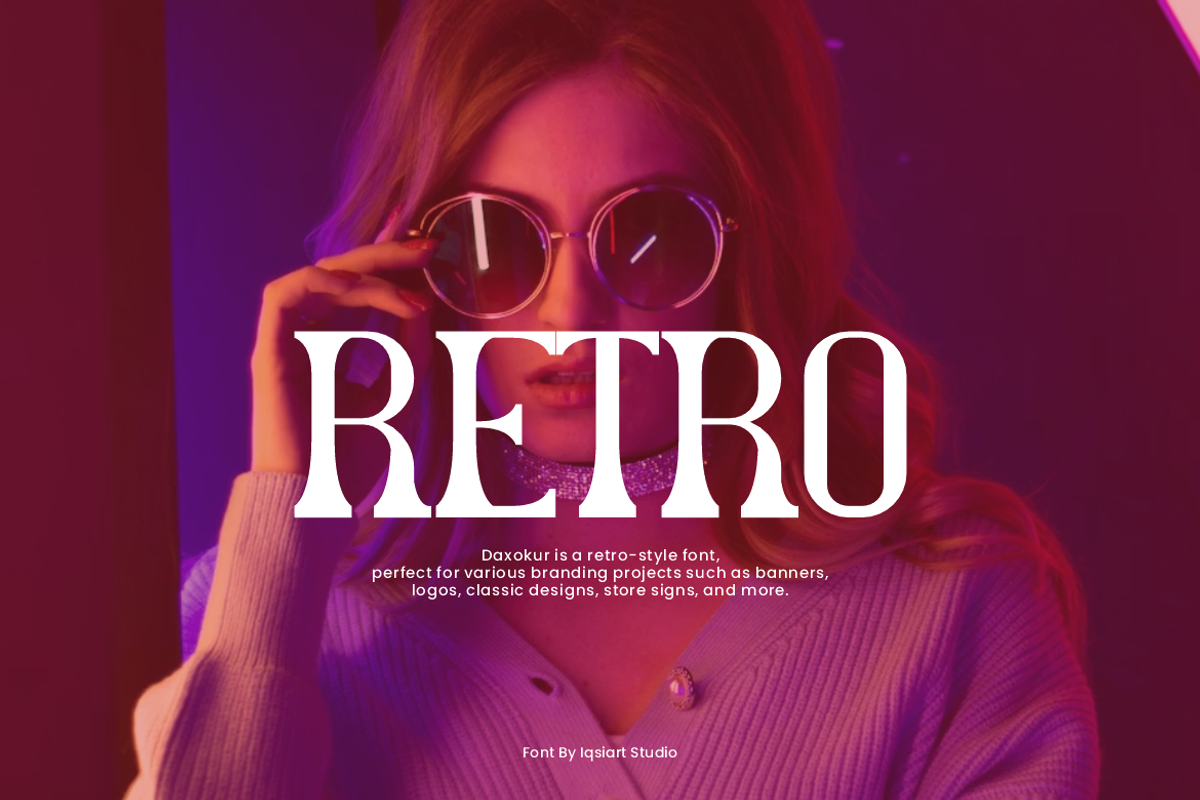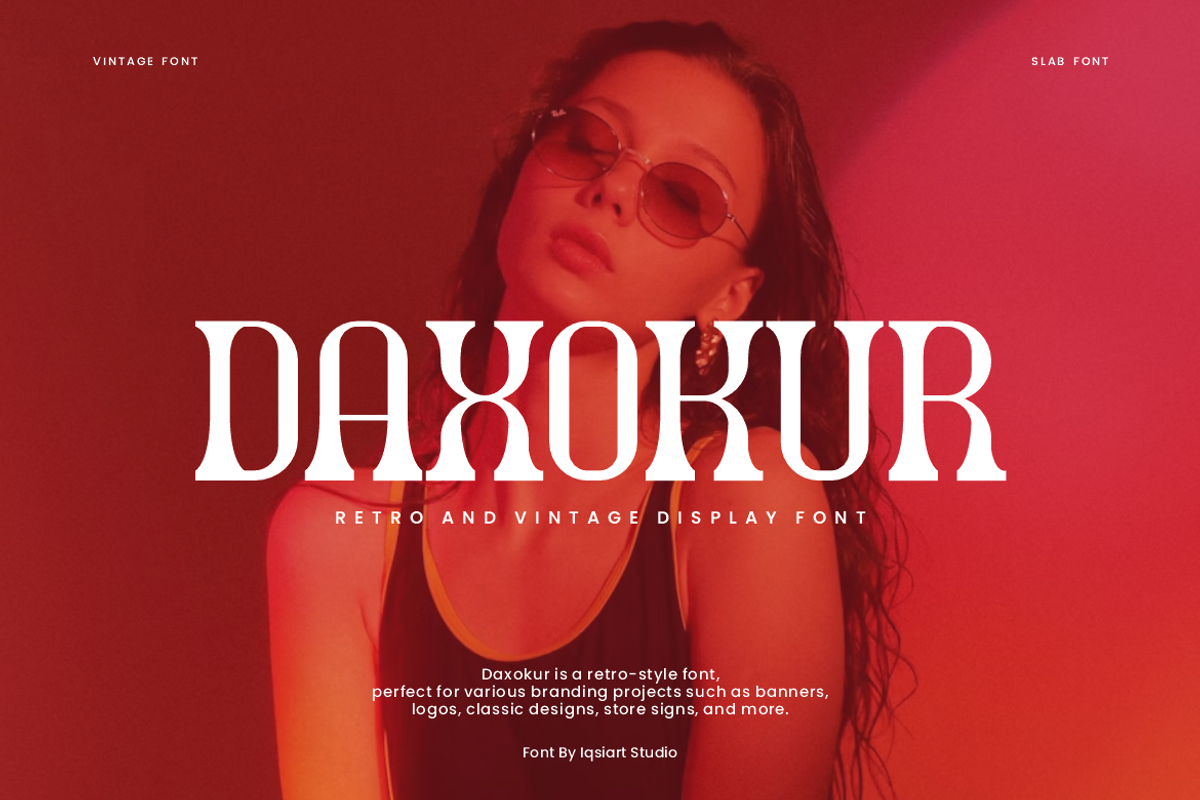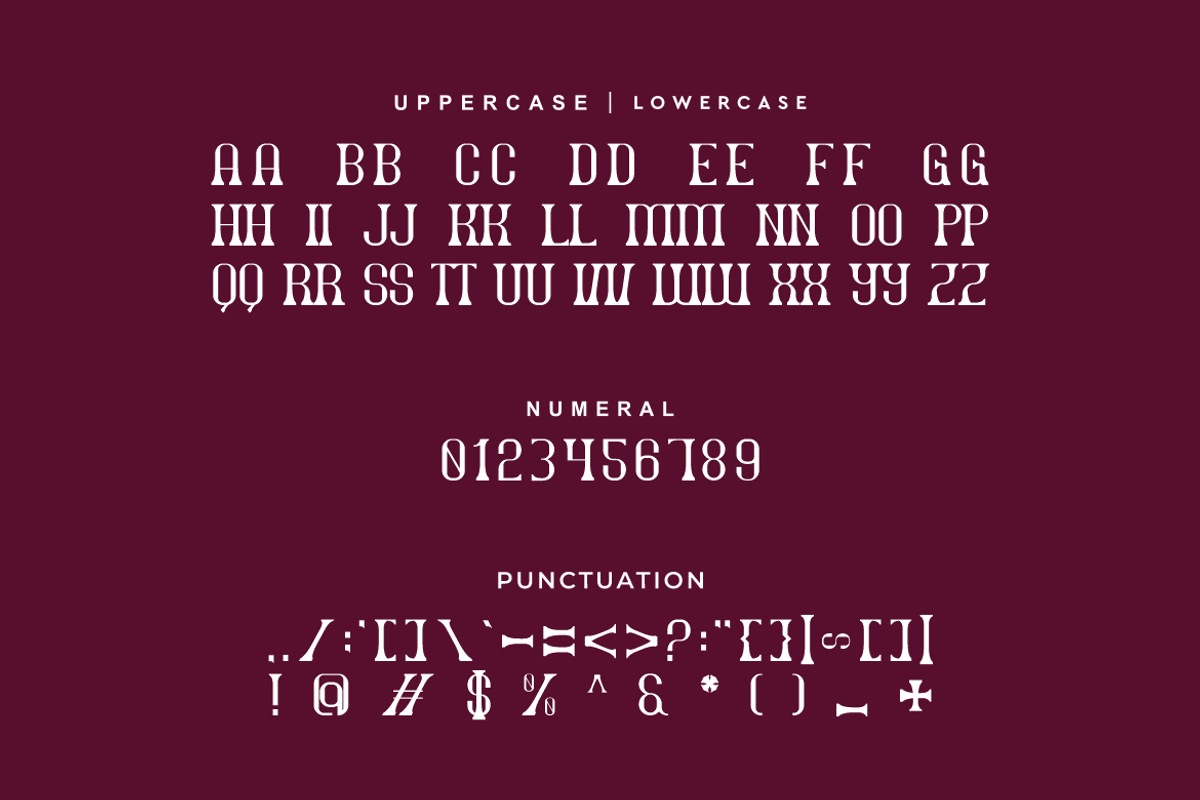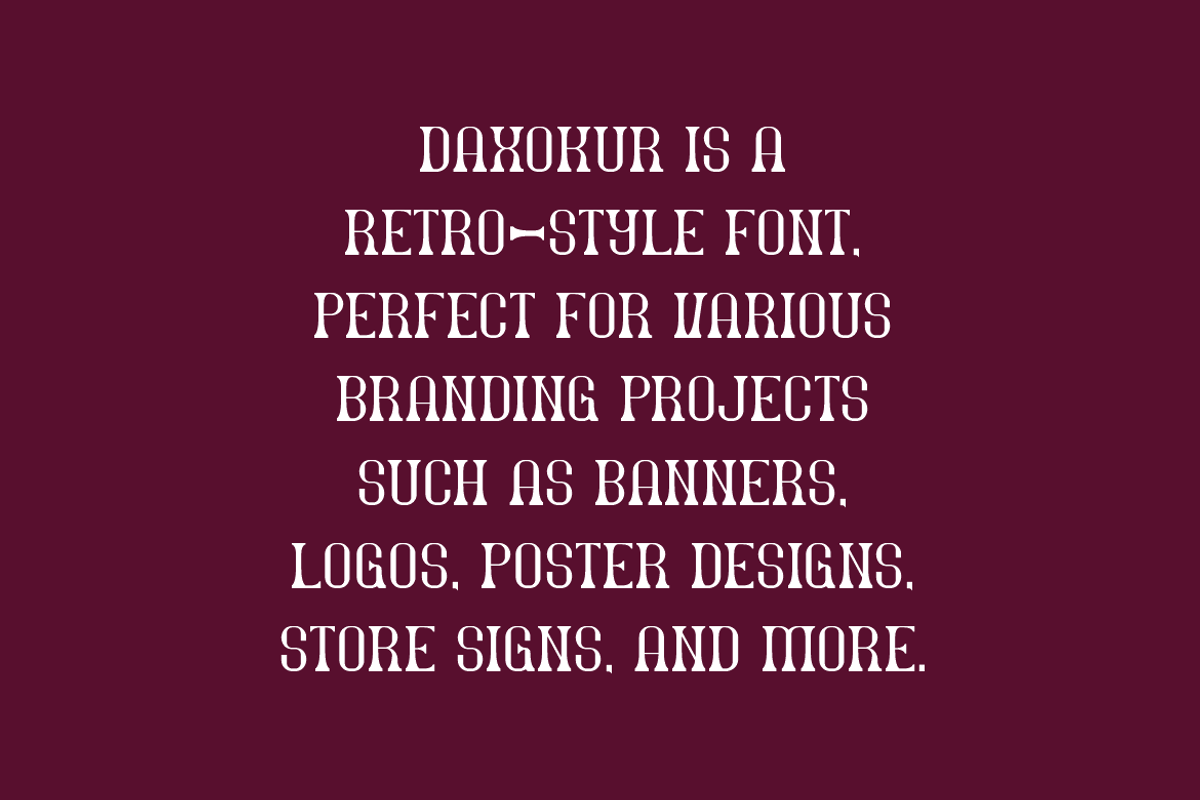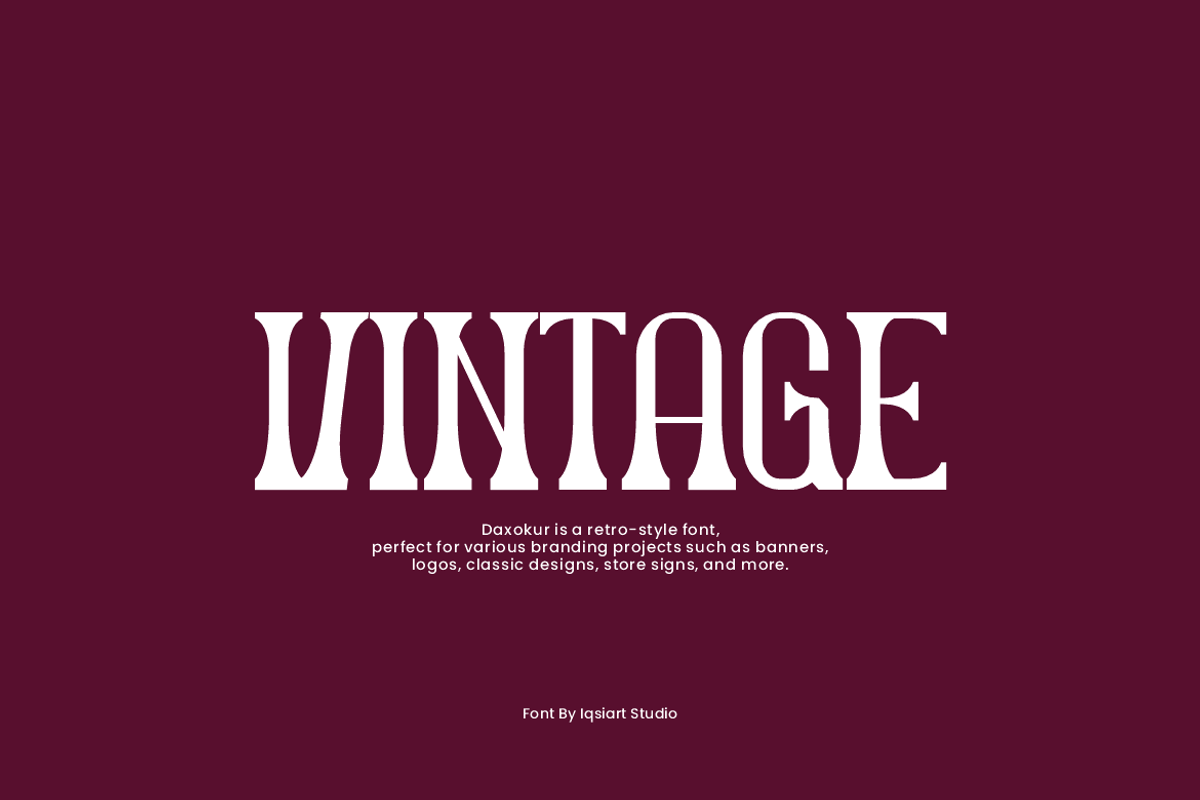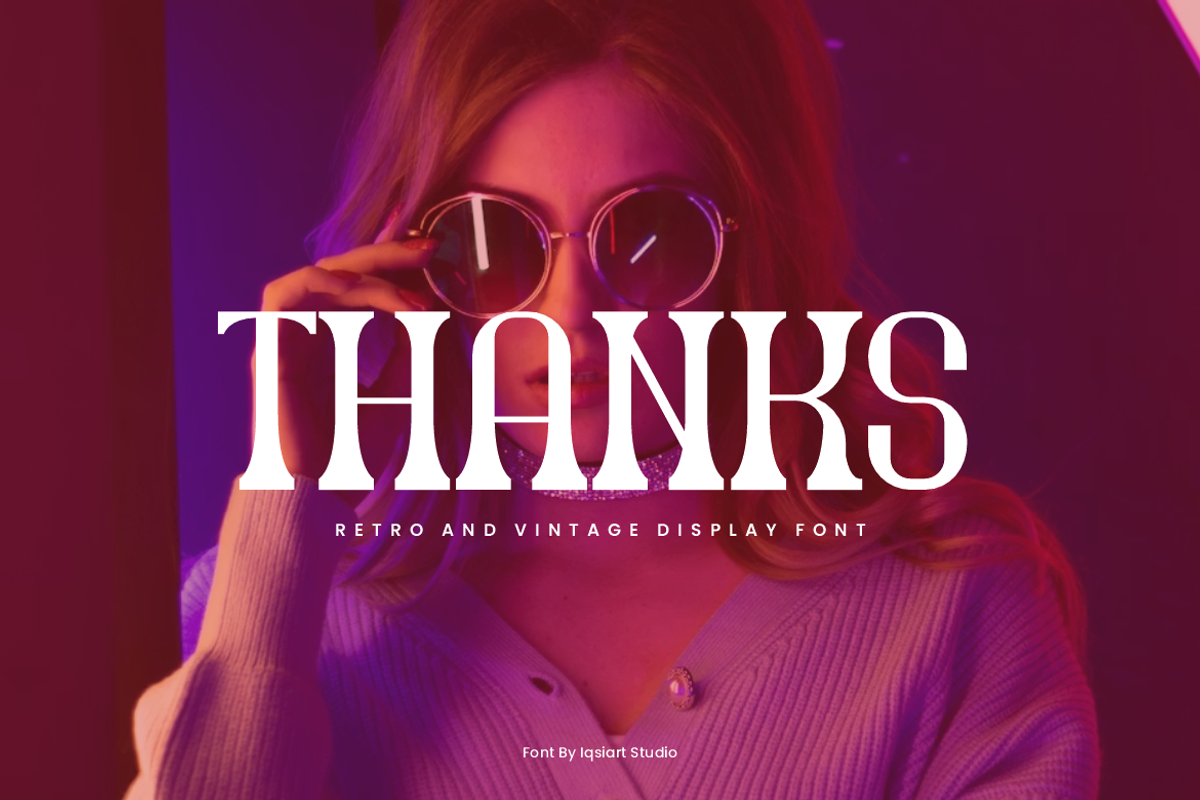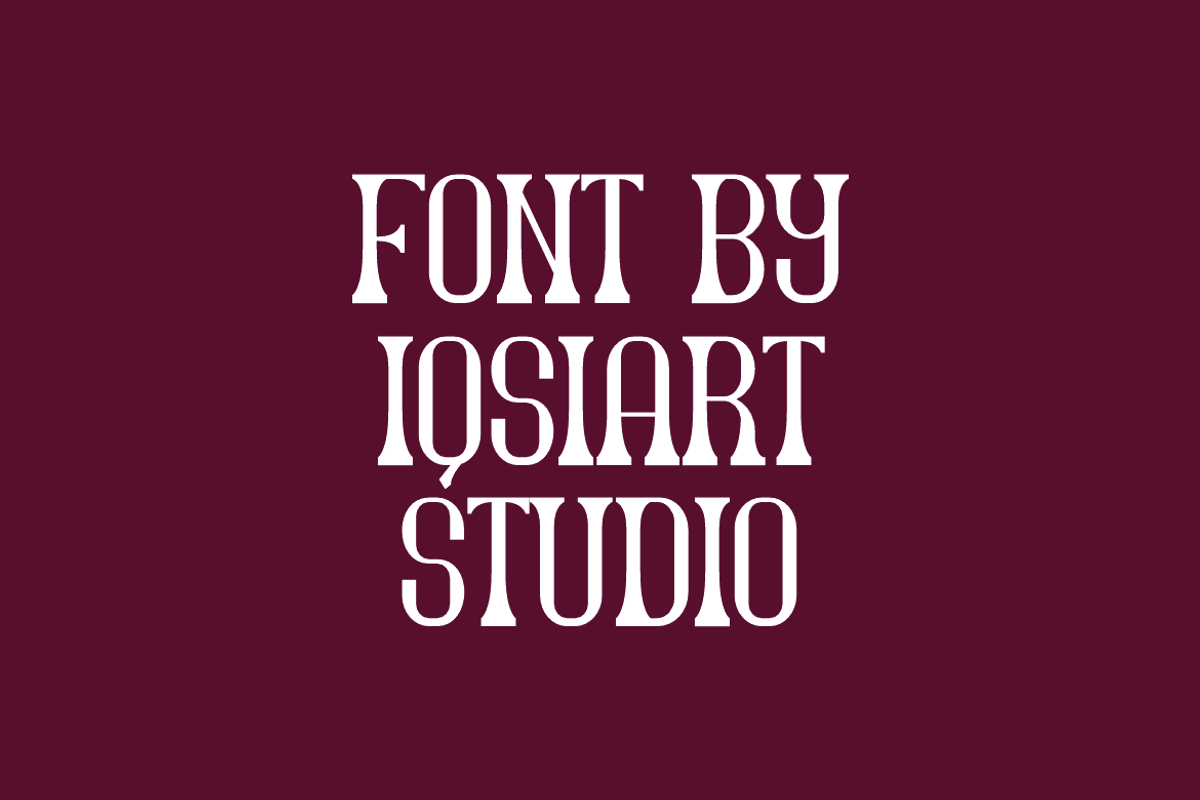
Daxokur - Retro Serif Font
Daxokur Font is a retro and authentic display typeface that suits a variety of design needs. We offer a wide range of themes and font styles — visit our profile to explore more and find the perfect style for your project.